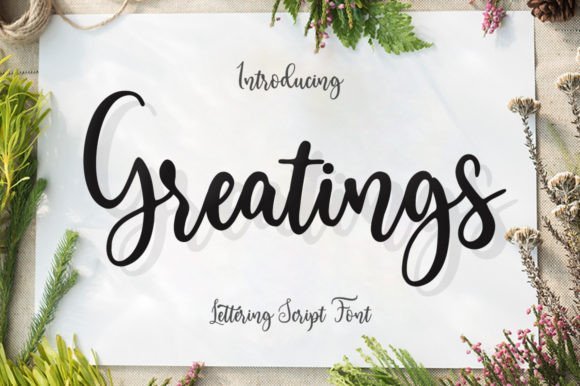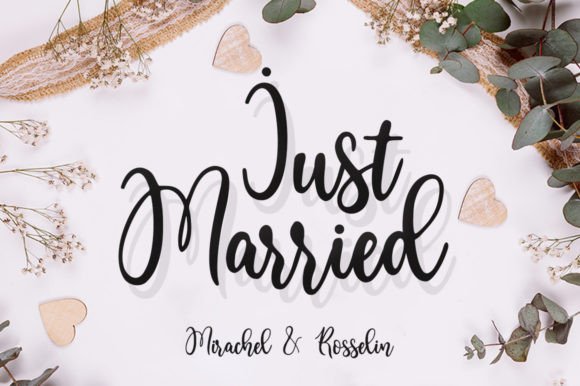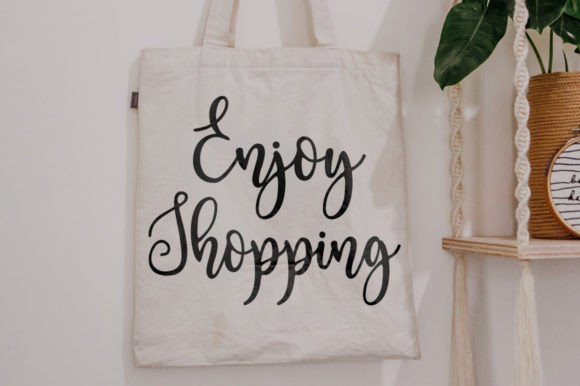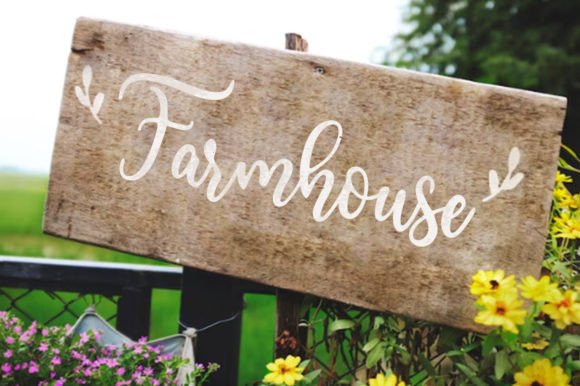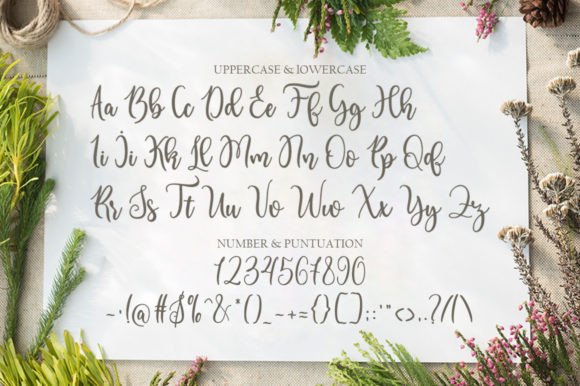
There’s nothing quite like the feeling of being inspired by a blank page, a blank canvas, or in this case, a blank document waiting for the perfect font. You’ve got an idea, a spark of creativity that’s begging to be brought to life, and the right font can make all the difference. That’s where Greatings Font comes in – a bouncy handwritten script font that’s sure to add a touch of personality to your next project.
Whether you’re designing a quote, a shirt, a website, or even a logo, Greatings Font is the perfect choice. Its playful, whimsical feel makes it a standout in any design, and its versatility means you can use it in a wide range of projects, from kids’ designs to branding and more. As a designer, you know how valuable it is to have a reliable font that can help you bring your ideas to life – and Greatings Font is a valuable addition to any design toolkit.
Key Features of Greatings Font
- Font Family: Greatings Font is a unique, hand-drawn font designed to evoke a sense of elegance and sophistication.
- Size: The font family includes 6 weights, ranging from Light to Black, each with its own unique characteristics and usage scenarios.
- Resolution: Designed for high-resolution displays, Greatings Font is ideal for use in digital applications, including web design, mobile apps, and print materials.
- Unique Characteristics: The font features intricate details, subtle texture, and a sense of movement, making it perfect for adding a touch of sophistication to headings, titles, and other display text.
- Character Count: The font family includes over 800 characters, including Latin, Greek, and Cyrillic scripts, as well as a range of punctuation and special characters.
Greatings Font Review
I recently had the chance to work with the Greatings Font, and I must say it’s a mixed bag. Here are my thoughts.
- The Greatings Font has a unique, hand-drawn feel that can add a touch of personality to designs.
- The font is highly customizable, with a wide range of styles and sizes available.
- The font is well-suited for creative projects, such as branding, advertising, and editorial design.
- The font may be too ornate for some projects, making it difficult to read at larger sizes.
- The font’s customizability can also be a double-edged sword, making it easy to get lost in the options.
- The font is not ideal for body text, as it can be tiring to read in large quantities.
The Greatings Font is a solid choice for designers who want to add a touch of whimsy to their projects. While it may not be suitable for every project, it’s definitely worth considering for those that require a more creative approach.
Tips: Use Greatings Font for creating eye-catching headings and titles. Experiment with different font sizes and colors to create a visually appealing design.
Tips: Use Greatings Font to create custom text effects and designs. Experiment with layer blending modes and opacity to create unique visual effects.
Tips: Use Greatings Font to create visually appealing presentations and documents. Experiment with different font sizes and colors to create a professional look.
Greatings Font is ideal for:
- Creating eye-catching headings and titles
- Designing custom text effects and visual effects
- Creating visually appealing presentations and documents
Q: What is the recommended font size and line height for using Greatings Font?
For optimal readability, we recommend using Greatings Font with a font size between 12 and 18 points, and a line height of at least 1.2 to 1.5 times the font size. This will help maintain a clear and legible typography in your designs.